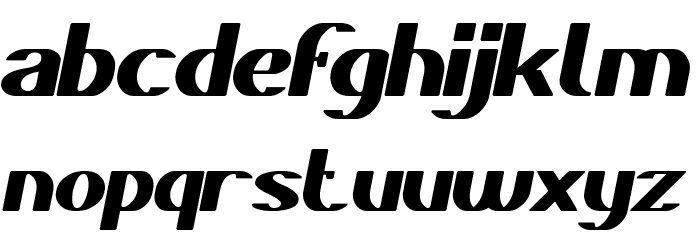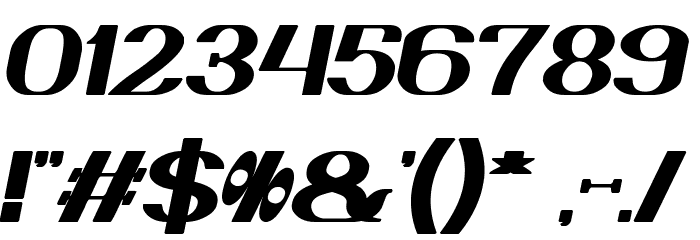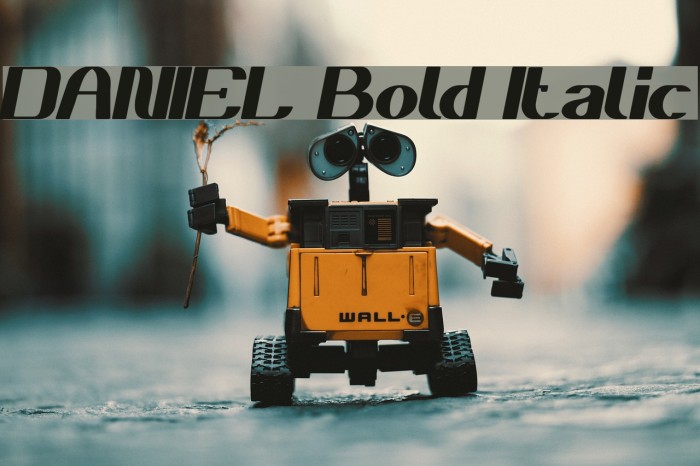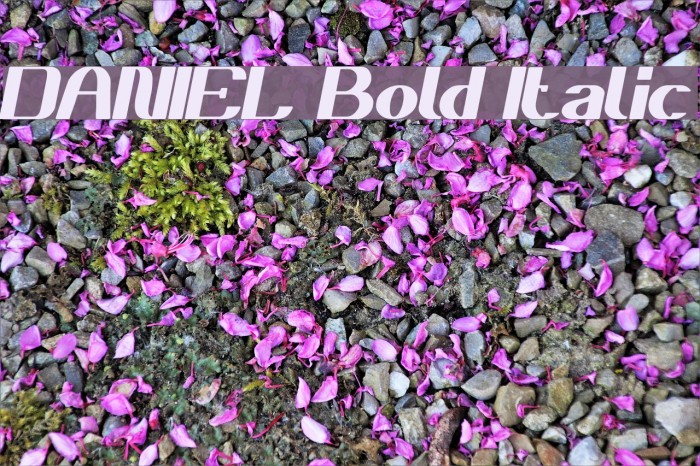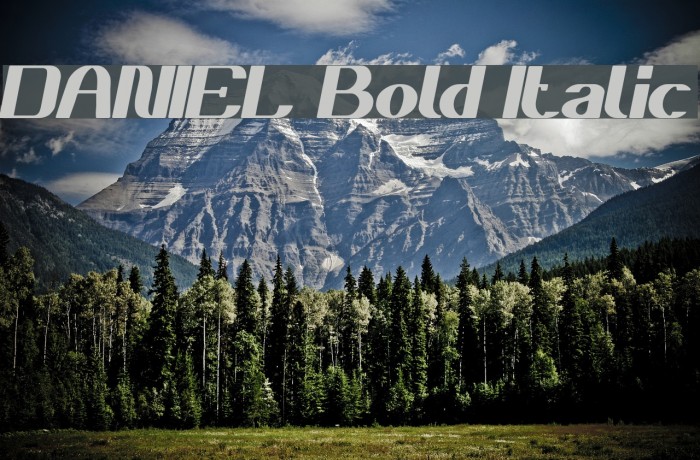
DANIEL Bold Italic Font
This font features a bold and italicized style, characterized by its strong and dynamic appearance. The letters have a forward-leaning slant, giving them a sense of motion and energy. The strokes are thick and consistent, providing a robust and impactful look. The uppercase and lowercase letters maintain a harmonious balance, with rounded edges that soften the overall boldness. Numbers and special characters are designed to match the font's bold and italic nature, ensuring a cohesive appearance across all characters. This font is suitable for projects that require a strong visual presence and a modern, stylish touch.
A bold, italicized font with a dynamic and modern style.
- Proposed Projects: Ideal for branding, advertising, headlines, and logo design where a strong and stylish impact is desired.
- Use Case: Headlines, Logos, Branding